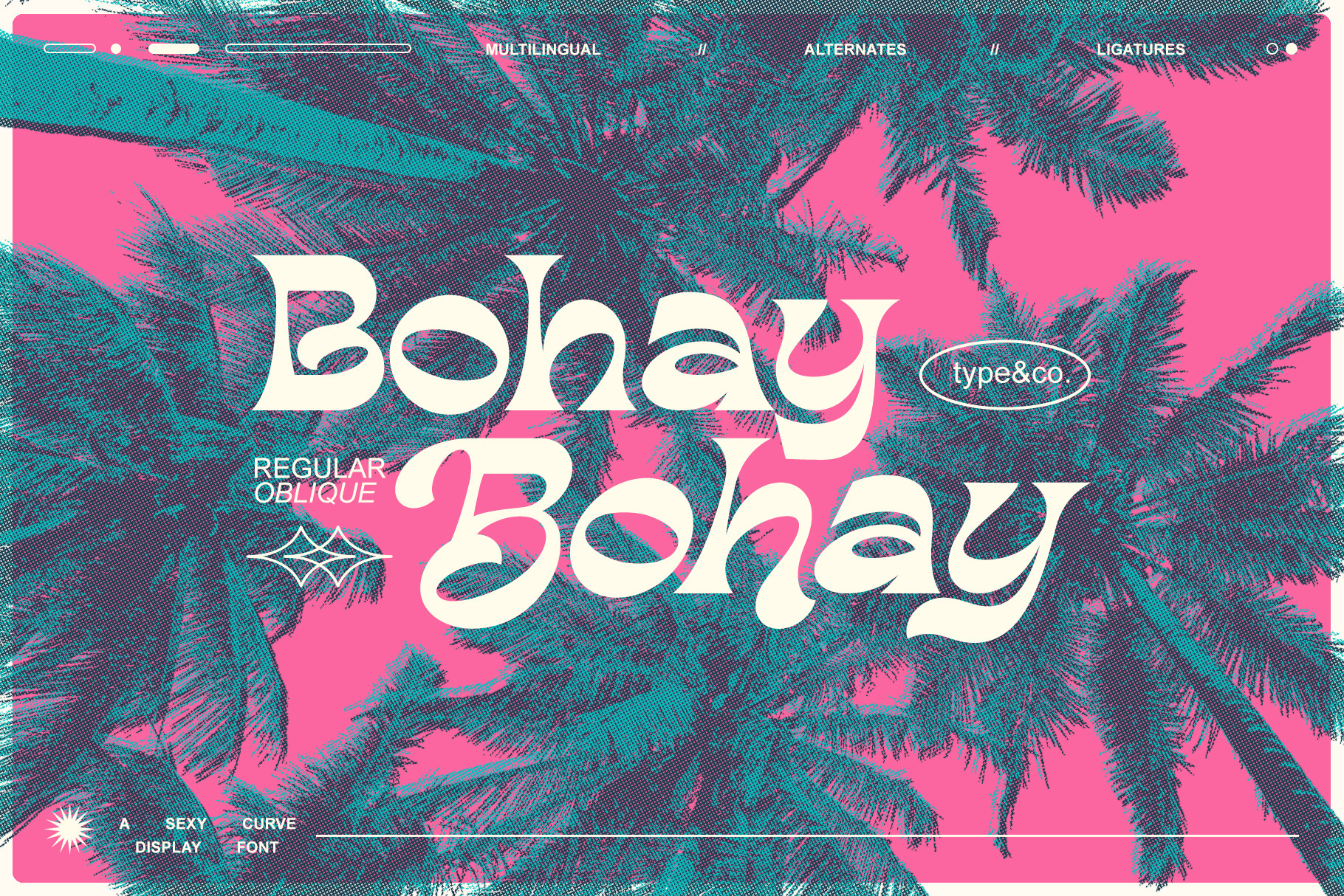
Bohay - A Curvy Display Font
Bohay is a slang word that stands for “beautiful body.” The term is usually purpose for something or someone who has a good body shape and looks sexy—inspired by that the Bohay display font made to catch your eye. It’s curve and fun, ready to be used for any project you have in mind.
- Regular and Oblique style. Entire upper & lower case, alternates & ligatures, numbers, punctuation, and - multilingual support.